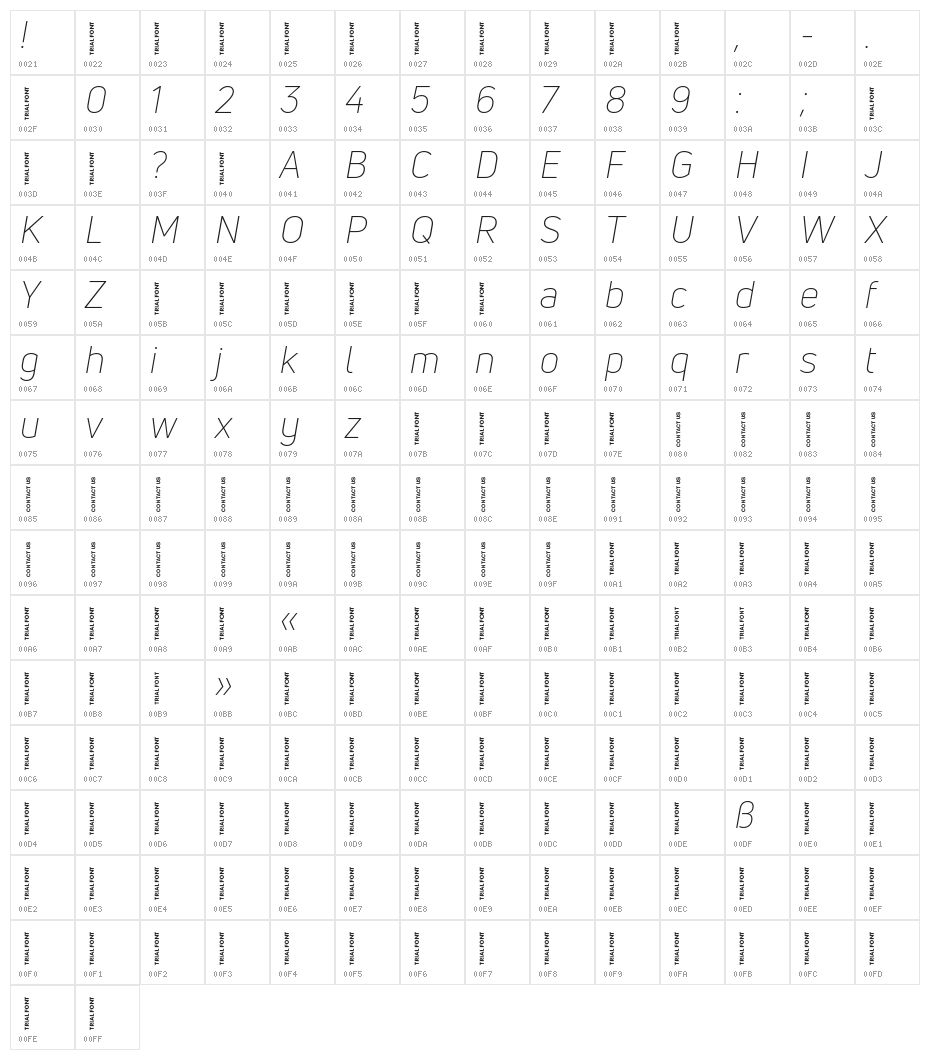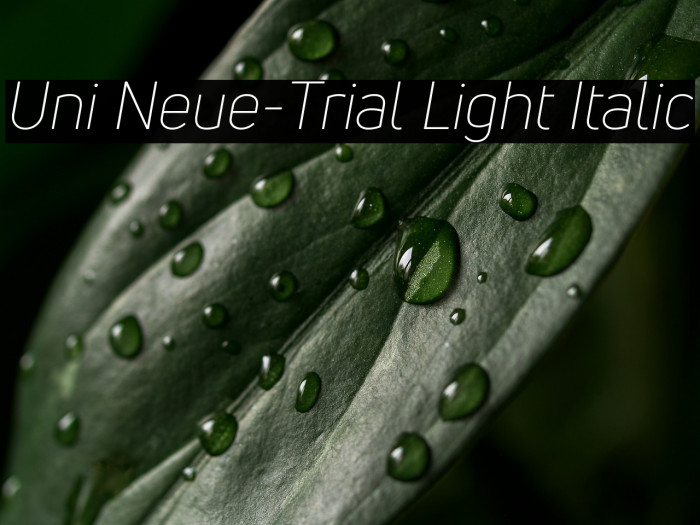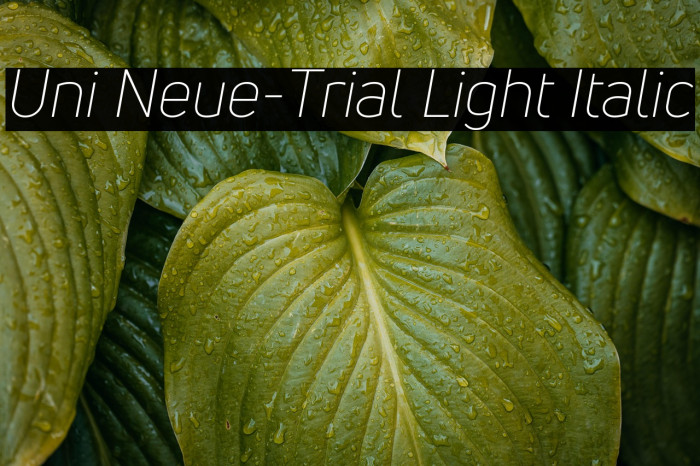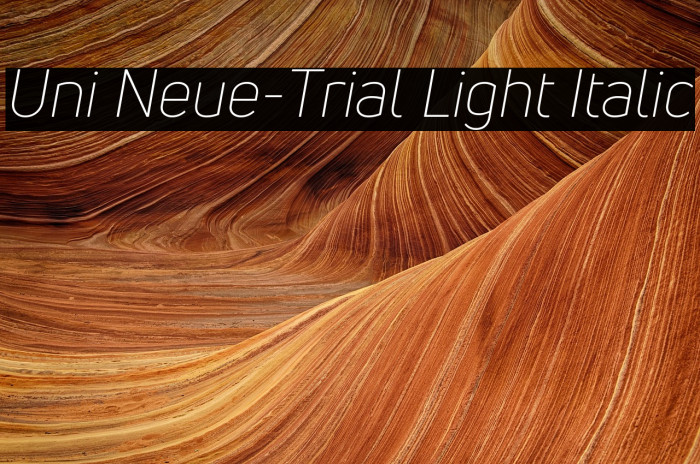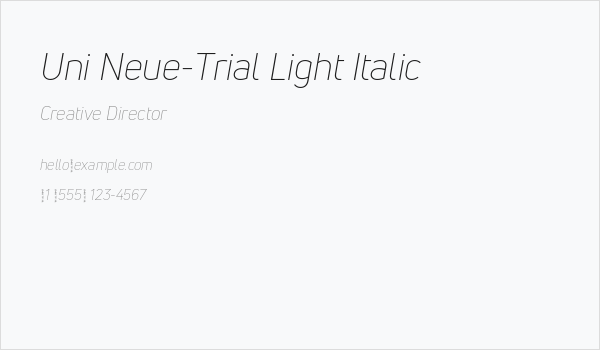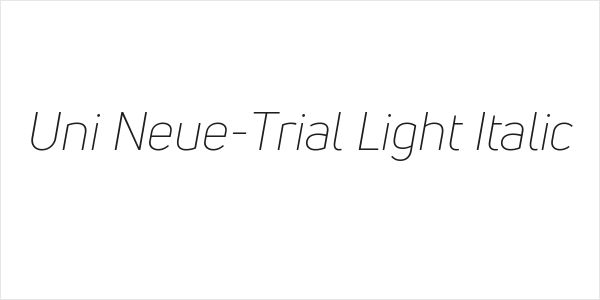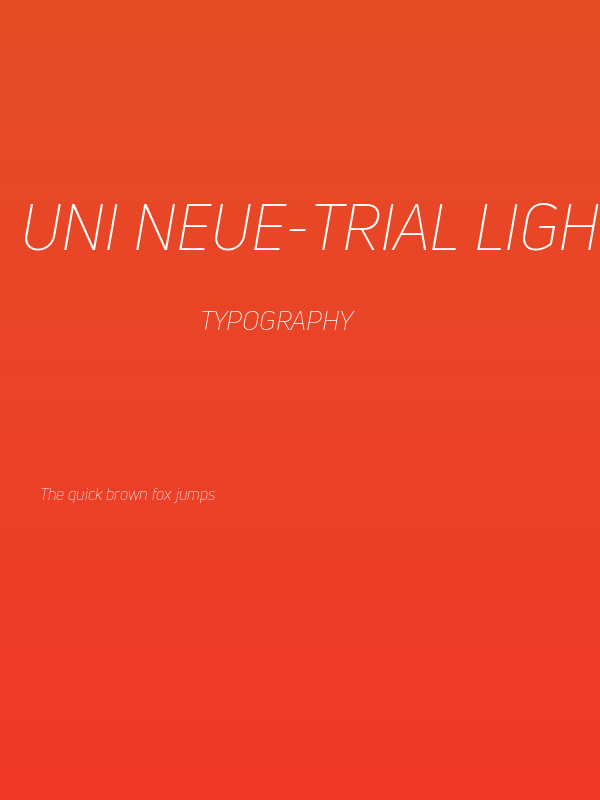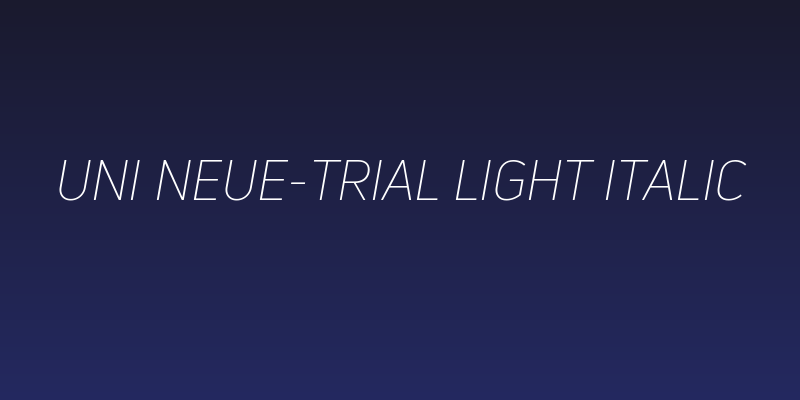
Uni Neue-Trial Light Italic Font
Uni Neue-Trial Light Italic Description
This font features a sleek and modern design with a light weight and italic style. The characters are elegantly elongated with smooth curves and clean lines, giving it a sophisticated and contemporary appearance. The uppercase and lowercase letters maintain a consistent slant, enhancing the italic effect. The numerals are clear and legible, matching the overall style of the alphabet. Special characters are included, maintaining the same aesthetic. This font is well-suited for projects that require a modern and stylish touch.
| Proposed Projects | Ideal for branding, editorial design, fashion magazines, and modern web design. |